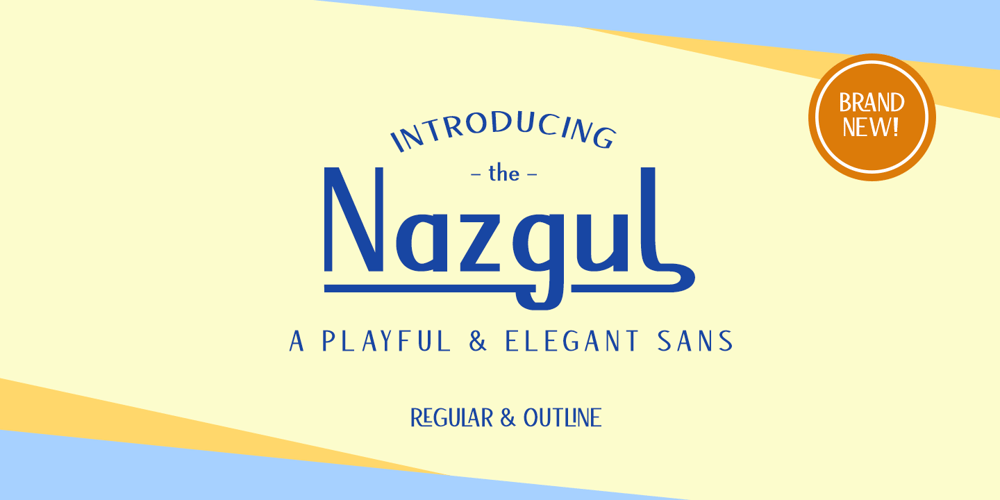
Nazgul Font Family was designed by Hajid Hikmatiyar and published by Hikhcreative. Nazgul contains 2 styles and family package options. Nazgul is a modern dynamic sans serif font with subtle vintage characteristics. It works perfectly for film posters, headlines, block letters, subheadings, logo designs, big banners, classic and decorative typography, web designs, packaging and more. The two styles, Regular and Outline, include more than 100 ligatures and alternate characters allowing for versatility in design.